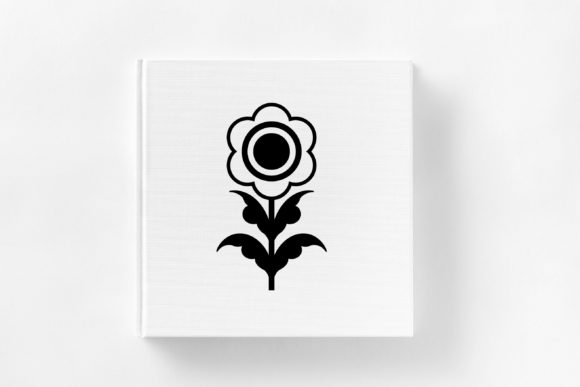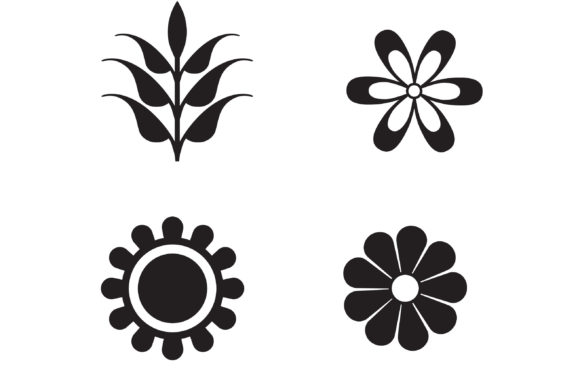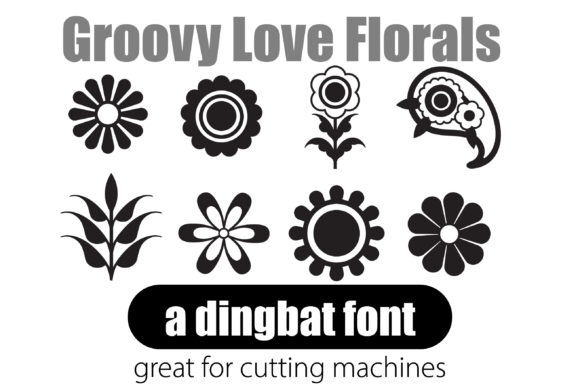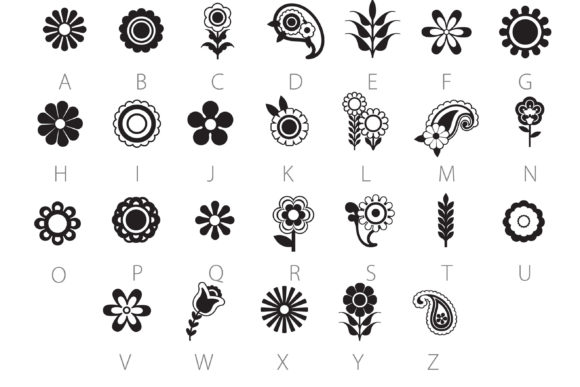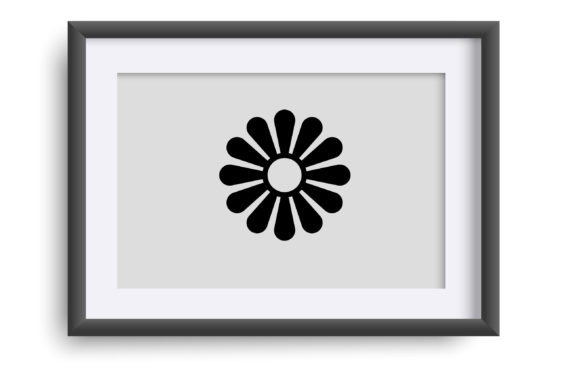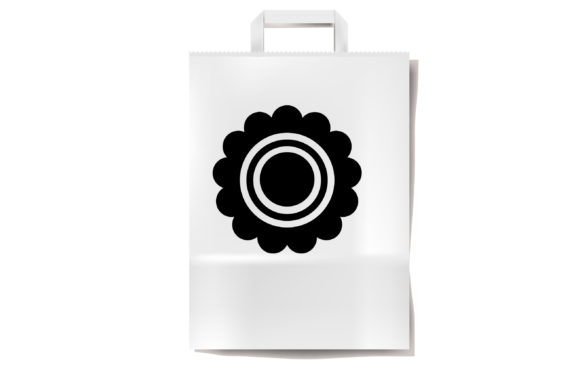
Groovy Love Font: Elevate Your Designs with Funky Florals and Hippy Vibes
Are you a designer or crafter looking for a unique and playful way to add some personality to your projects? Look no further than the Groovy Love Font bundle! This exciting collection features not one, but two dingbat fonts that are sure to bring a touch of nostalgia and whimsy to your designs. In this article, we’ll dive into the details of what makes the Groovy Love Font so special and how it can elevate your creative projects.
What’s in the Groovy Love Font Bundle?
The Groovy Love Font bundle is a treasure trove of creative possibilities, featuring two distinct dingbat fonts that cater to a wide range of design needs. The first font is adorned with groovy flowers, perfect for adding a touch of elegance and playfulness to your projects. The second font takes it up a notch with hippy-inspired graphics, ideal for those who want to infuse their designs with a bit of retro charm.
Multiple Glyphs for Endless Possibilities
One of the standout features of the Groovy Love Font bundle is the extensive range of glyphs available in each font. With multiple glyphs at your disposal, you can experiment with different combinations to create truly unique and eye-catching designs. Whether you’re working on a vinyl project, crafting custom signs, or designing social media graphics, the Groovy Love Font bundle provides the perfect toolkit to make your creations shine.
Perfect for Vinyl and Cutting Machines
Crafters and makers, rejoice! The Groovy Love Font bundle is specifically designed with vinyl and cutting machines in mind. The fonts are optimized for use with popular cutting software, making it easy to import and cut out your designs with precision. This means you can create custom decals, signs, and iron-on designs with ease, all while adding a touch of personality to your projects.
Why Choose the Groovy Love Font?
So, what sets the Groovy Love Font apart from other dingbat fonts on the market? Here are just a few reasons why designers and crafters are falling in love with this bundle:
- Unique and playful designs: The Groovy Love Font bundle offers a refreshing alternative to traditional fonts, with its funky florals and hippy-inspired graphics.
- High versatility: With multiple glyphs and two distinct fonts, you can experiment with different combinations to suit your design needs.
- Perfect for a range of projects: From vinyl decals to custom signs, the Groovy Love Font bundle is suitable for a wide range of applications.
Tips and Inspiration for Using the Groovy Love Font
Now that you’re excited about the Groovy Love Font bundle, here are some tips and inspiration to get you started:
- Mix and match glyphs: Experiment with different combinations of glyphs to create unique and eye-catching designs.
- Pair with bold colors: The Groovy Love Font bundle is perfect for adding a pop of color to your designs. Try pairing it with bold, bright hues for maximum impact.
- Use for seasonal projects: The funky florals and hippy-inspired graphics in the Groovy Love Font bundle make it perfect for seasonal projects, such as Easter or summer-themed designs.
The Groovy Love Font bundle is a must-have for designers and crafters looking to add a touch of personality to their projects. With its unique and playful designs, high versatility, and ease of use, this bundle is perfect for a wide range of applications. Whether you’re working on vinyl projects, custom signs, or social media graphics, the Groovy Love Font bundle is sure to elevate your designs and bring a smile to your audience’s faces.